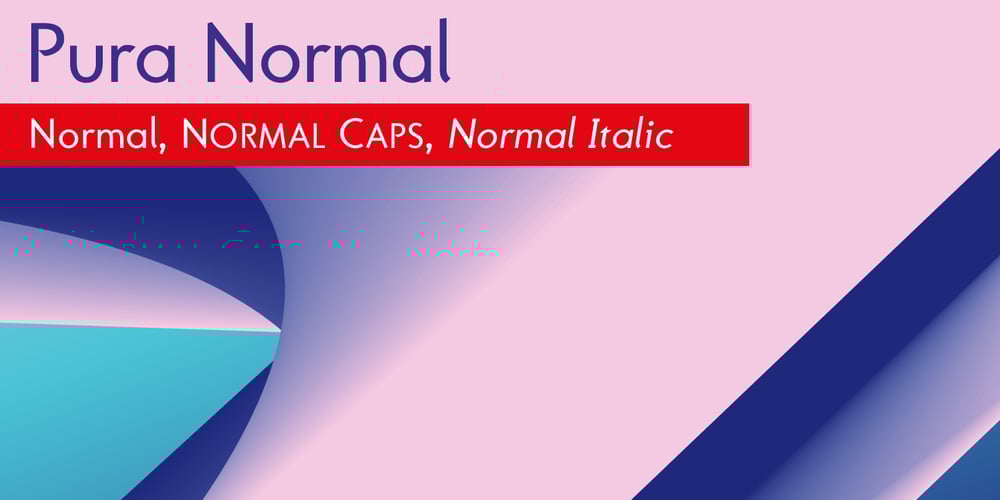
Pura Font Family was designed by Gert Wiescher and published by Wiescher Design. Pura contains 12 styles and family package options. Pura is font design with as little thought about tradition as possible, as the name implies it will become my purest design yet. I wanted to design a typeface, that would be a “linear Antiqua” without being just plain linear. So I gave the “linear” more contrast than befits that type of font. The font had to have very distinct letters. For example the capital ‘I’ had to be distinctive from the lowercase ‘l’ and so on. I wanted to design a good looking typeface, that still did not force itself on the reader. But judge for yourself! Your elegant type designer Gert Wiescher P.S. The Pura font-family will be gradually extended, so watch out for new cuts all the time!